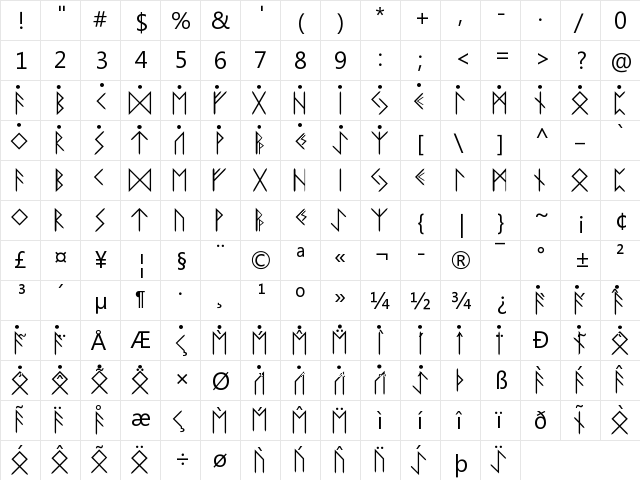
FutharkAdapted Regular Font Preview
FutharkAdapted Regular
Design Context for FutharkAdapted Typeface
FutharkAdapted is a composed and adaptable typeface that performs quietly and consistently across a wide range of design contexts.